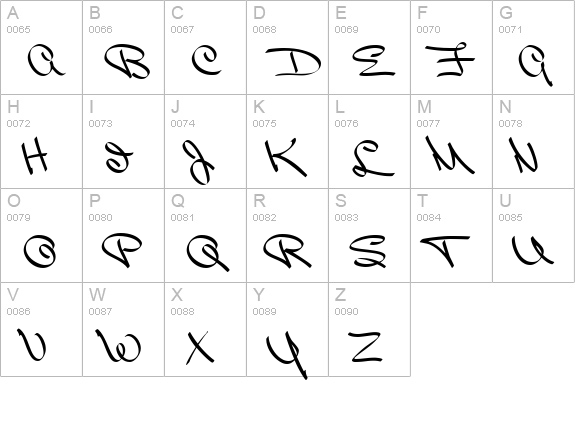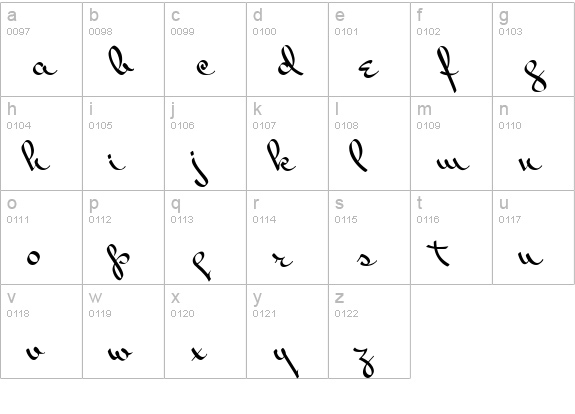
Miss Packgope is a charming and elegant handwritten font that exudes a sense of sophistication and style. Its flowing curves and delicate lines give any project a touch of grace and class. This font is perfect for wedding invitations, branding projects, and other designs that call for a touch of femininity. The best part? Miss Packgope is available for free download at FontsMarket.com. Now you can add this beautiful font to your collection without breaking the bank. So why wait? Download Miss Packgope today and elevate your designs to a whole new level of beauty and elegance.